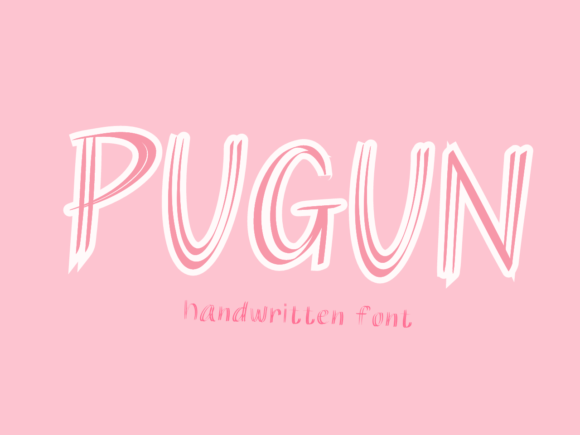
Adorn your designs with Pugun Font, a captivating creation from Pukka De. This enchanting script font exudes a playful charm that is sure to add a dash of whimsy to your creative endeavors.
With its charming strokes and bouncy curves, Pugun Font possesses an irresistible allure. It's as if each letter dances across the page, inviting you on a delightful journey. Unleash your creativity and let Pugun Font transform your designs into mesmerizing works of art.
Step into a world of endless possibilities with Pugun Font. Whether you're designing cheerful party invitations, vibrant social media posts, or eye-catching marketing materials, Pugun Font has got you covered. Its versatility knows no bounds, making it the perfect choice for a wide range of projects.
Imagine your words taking on a life of their own, dancing and twirling across the page. Pugun Font's unique style adds a touch of playfulness and cheerfulness to any design. It's the perfect font for adding a personal touch to your creative projects, making them truly stand out from the crowd.
With Pugun Font in your arsenal, you'll discover a new level of creative expression. Its vibrant energy and playful spirit will ignite your imagination and inspire you to create designs that capture hearts and leave a lasting impression.
Pugun Font is more than just a font; it's an experience. Immerse yourself in its whimsical world and let your creativity soar. Download Pugun Font today and embark on a journey of artistic exploration.